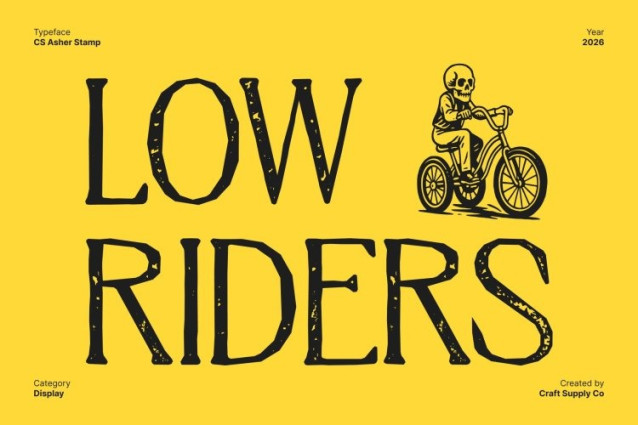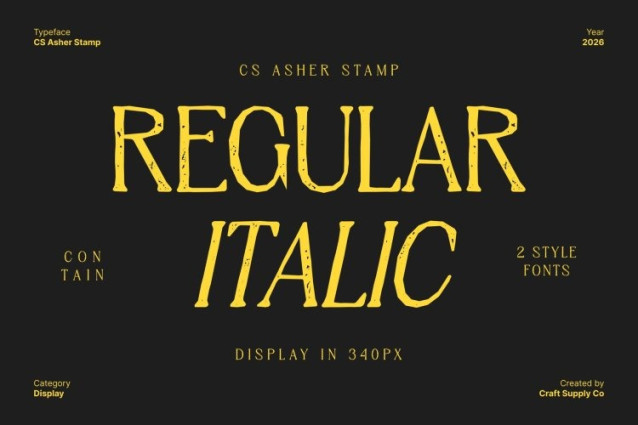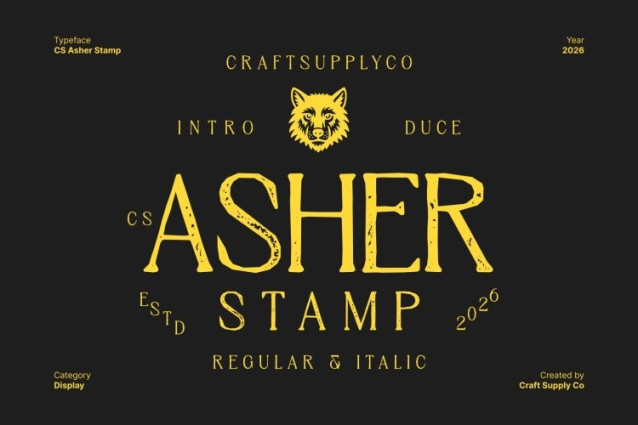
CS Asher Stamp Font This is a modern serif font that embodies contemporary sophistication through sleek, minimalist letterforms. Its refined structure and narrow proportions create a clean, elegant appearance that feels modern yet timeless perfect for designs that demand subtle luxury and visual clarity.
Sleek and Minimalist Design
Featuring clean lines and slender serifs, delivers a sophisticated aesthetic with understated confidence. The minimalist construction allows the typography to feel light, refined, and upscale, making it especially effective for premium branding and high-end editorial layouts.
Stamped Texture with Subtle Vintage Character
The stamped style introduces a slightly rough, uneven texture that adds warmth and authenticity to the elegant serif foundation. This tactile detail softens the modern precision, giving the font a handcrafted, vintage nuance while preserving its refined and professional look.
Perfect for Upscale Branding and Editorial Design
Ideal for luxury branding, fashion editorials, packaging, posters, and sophisticated print or digital layouts, enhances visual communication with contemporary grace and authentic character. Its combination of modern serif elegance and stamped texture makes it a versatile choice for designs that seek refinement, credibility, and timeless appeal.